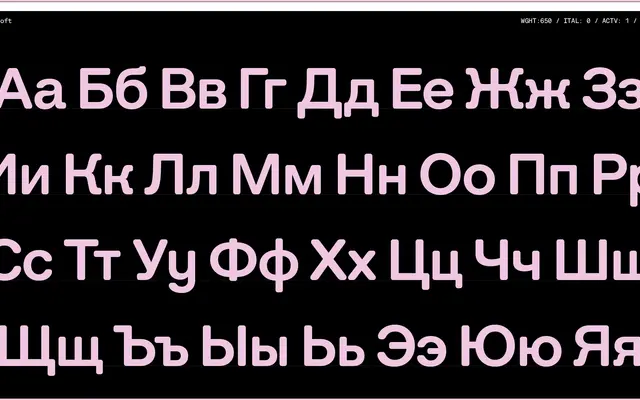
Algorytm Soft
A rounded grotesque with early American gothic roots, offered in eight weights with an extensive set of stylistic alternates and Cyrillic support.
Part of the six-family Algorytm Collection from Interval Type, this variant applies softened, rounded corners to the underlying grotesque structure to produce a friendlier character. Eight weights from Extralight to Ultra are available, and the family ships with a generous palette of OpenType alternates covering single- and double-storey forms, geometric constructions and additional Cyrillic characters. Coverage extends across Extended Latin and Cyrillic scripts, making it a workable option for multilingual branding and interface projects.
Described as inspired by early gothic sans serifs such as Times Gothic and Inland Gothic, with a modern systematic approach; the rounded terminals place it firmly in the friendly grotesque subcategory.